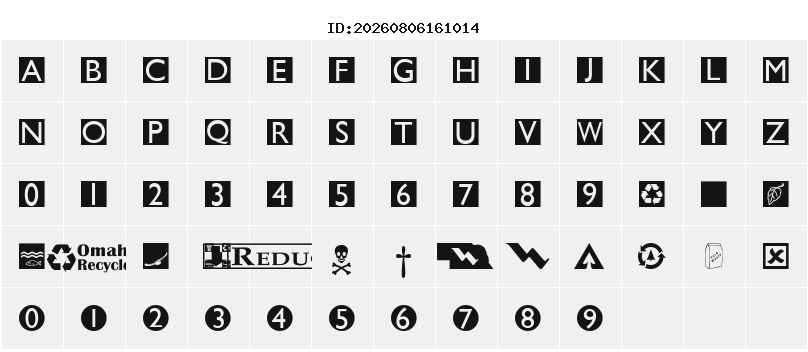
About OmahaDings.ttf
OmahaDings.ttf is a modern, elegant sans-serif font designed for ultimate readability and visual harmony. Perfect for branding, headlines, web design, and print materials.